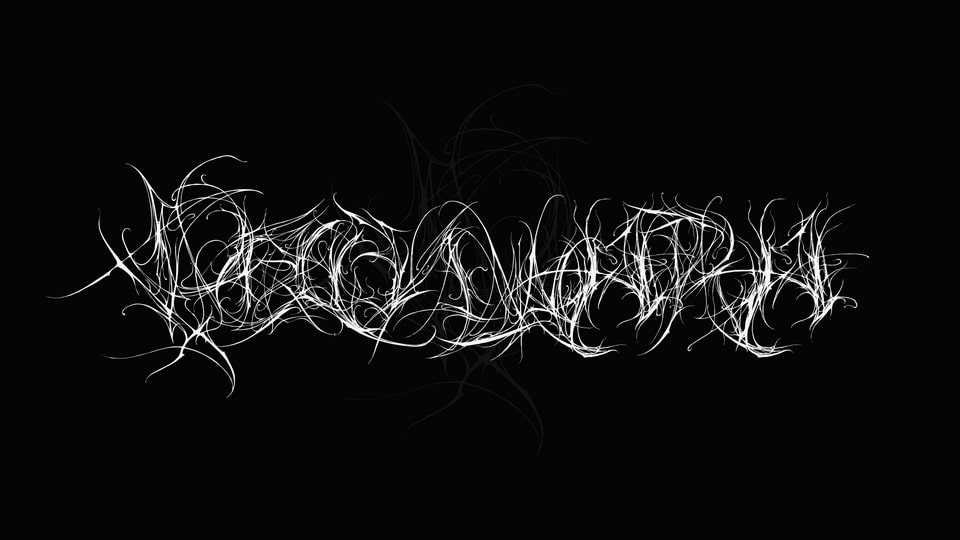
Download Pochwara font, a chaotic, ultra-intricate black metal typeface that thrives on visual overload and raw intensity, composed of razor-sharp strokes, tangled barbs, and aggressive spiked flourishes.